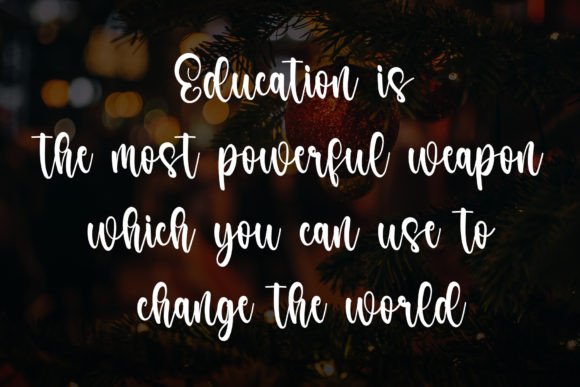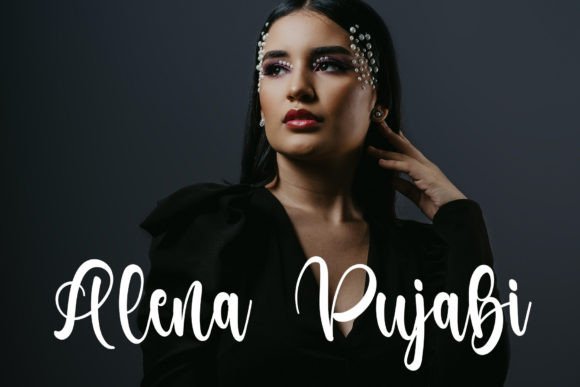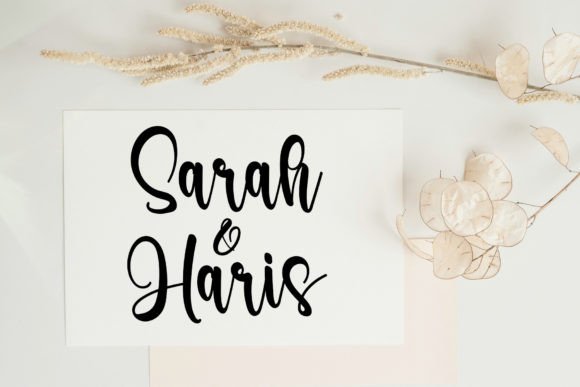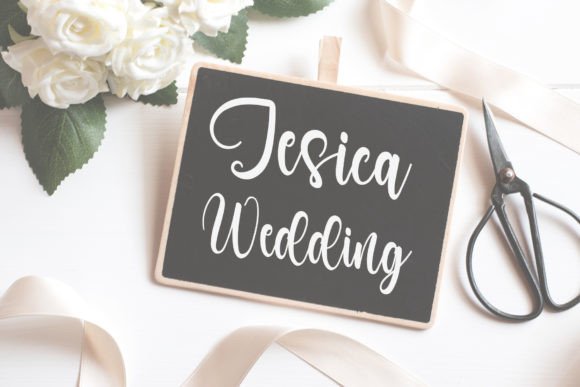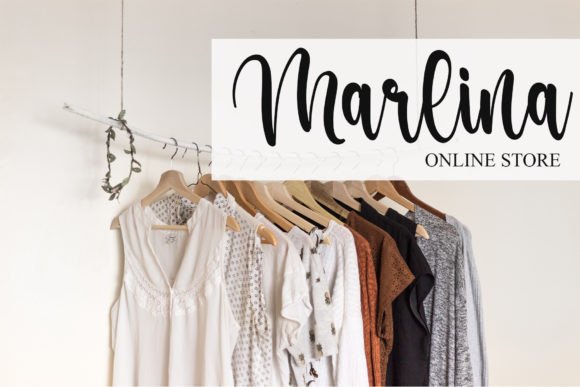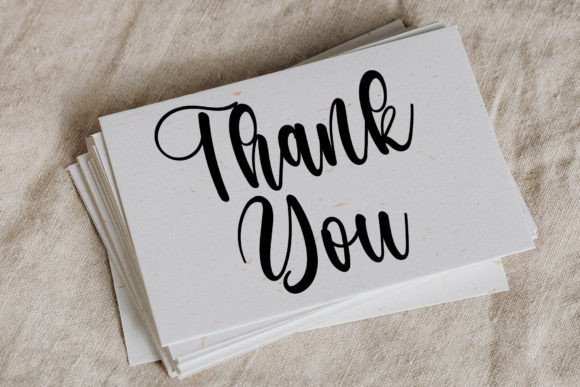
A Touch of Magic for Your Designs: Christmas Stocking Font
Do you remember that moment when you stumbled upon the perfect font to elevate your design project? For many creatives, it’s a moment of pure joy and excitement. You envision the possibilities and can’t wait to bring your idea to life. That’s exactly what Christmas Stocking Font aims to do – add a touch of elegance to your designs and make them truly special.
Christmas Stocking Font is a beautifully crafted, handwritten font that’s perfect for Instagram captions, DIY projects, and any other design that needs a personal touch. With its magical feel, this font is sure to turn any creative idea into a stunning piece of art. Whether you’re a seasoned designer or a hobbyist, the Christmas Stocking Font is an invaluable asset to have in your toolkit.
Christmas Stocking Font Key Features
- Unique Characteristic: The font is designed to resemble a Christmas stocking, with a playful and festive feel.
- Font Style: The font comes in 2 styles: Regular and Outline, providing versatility for different design needs.
Designer Review: Christmas Stocking Font
First off, I really love the playful and festive vibe of the Christmas Stocking Font. It’s perfect for holiday projects, like greeting cards, party invitations, or even festive social media posts. The font has a ✨ whimsical feel to it, which is great for adding a touch of holiday cheer to your designs.
The font has a good range of characters, including numbers, punctuation, and even some special characters like snowflakes and stars. This makes it a great choice for holiday-themed projects that need a bit of extra flair.
Some things that could be improved include:
- ⚠️ Limited language support: The font only includes English characters, which might be a problem for designers working on projects that need to be translated into other languages.
- ⚠️ Not ideal for large blocks of text: While the font is great for headlines and short snippets of text, it might not be the best choice for larger blocks of text, as it can start to feel a bit cramped and hard to read.
- ⚠️ Some characters could be more detailed: A few of the characters, like the snowflakes, could be more detailed and intricate to make them feel more festive.
Overall, I think the Christmas Stocking Font is a great choice for holiday projects, but it’s not perfect. With a bit more attention to detail and language support, it could be even more versatile and useful for designers.
Use the Christmas Stocking Font to add a festive touch to your designs, such as:
- Creating holiday greeting cards and invitations
- Designing festive social media graphics
- Adding a holiday theme to your website or blog
The Christmas Stocking Font is perfect for:
- Holiday marketing campaigns
- Christmas